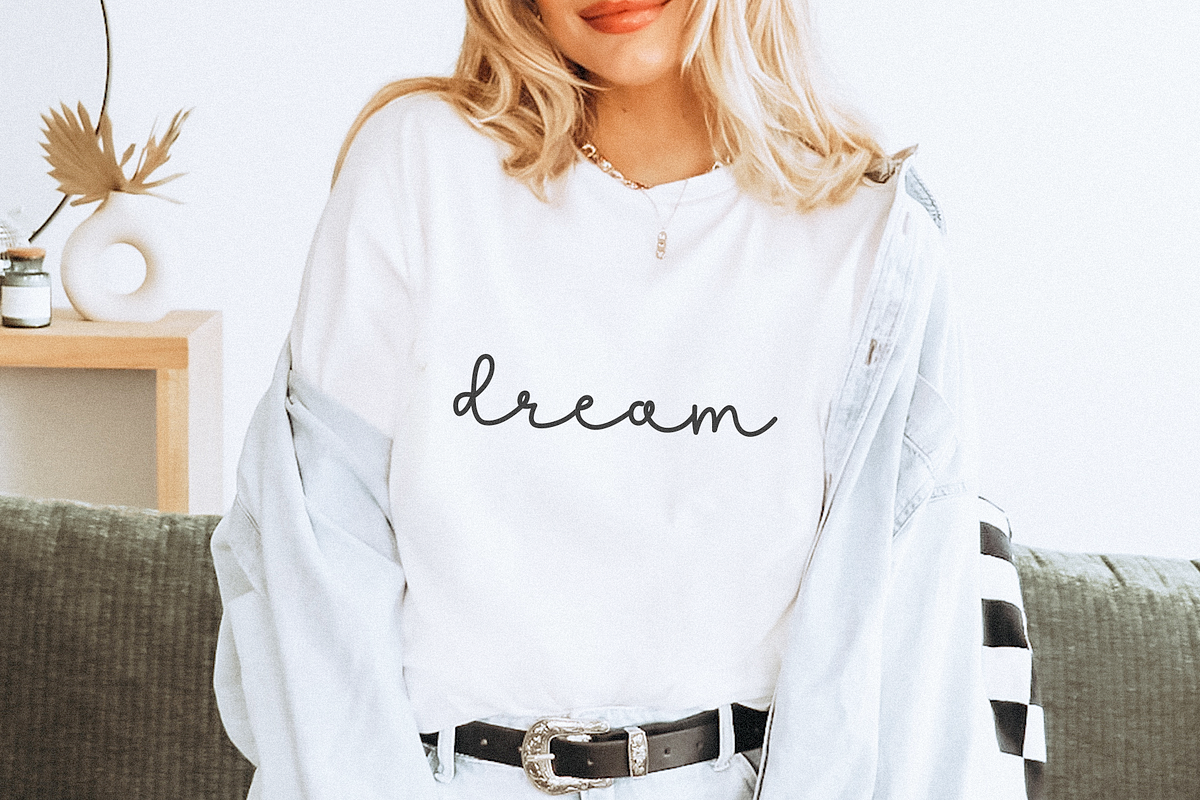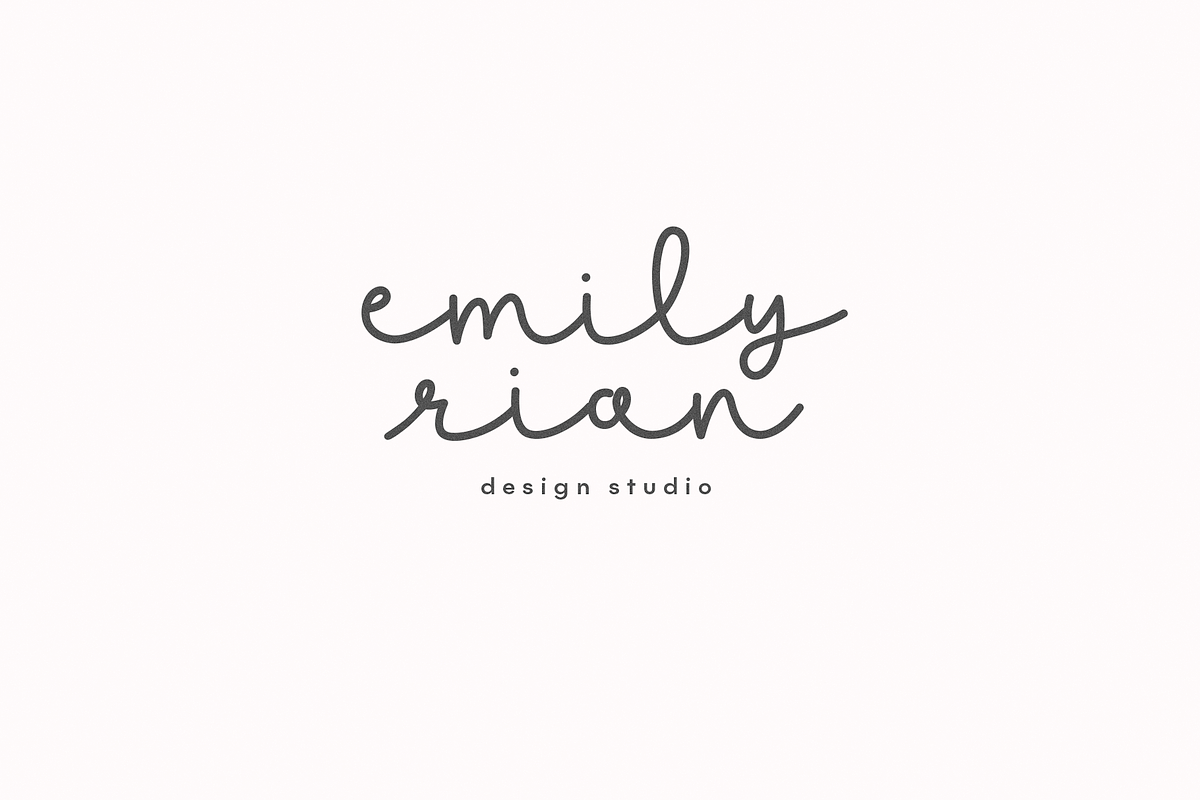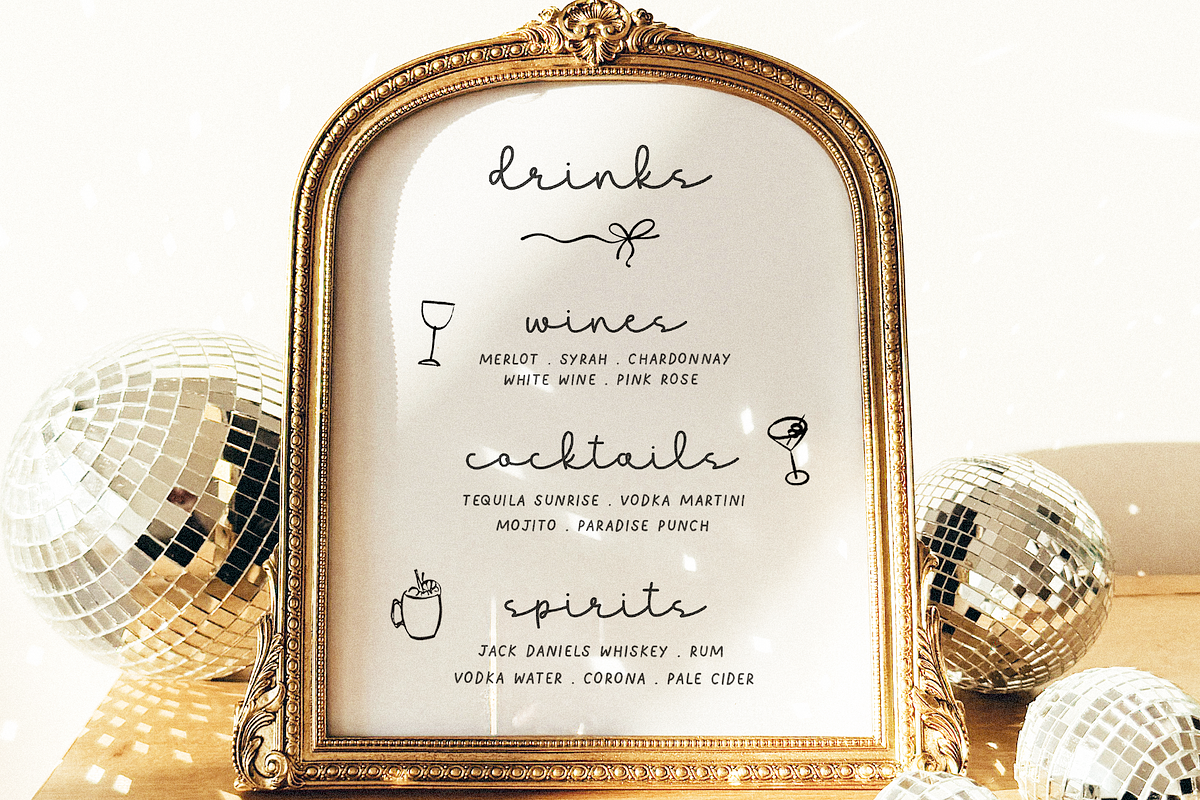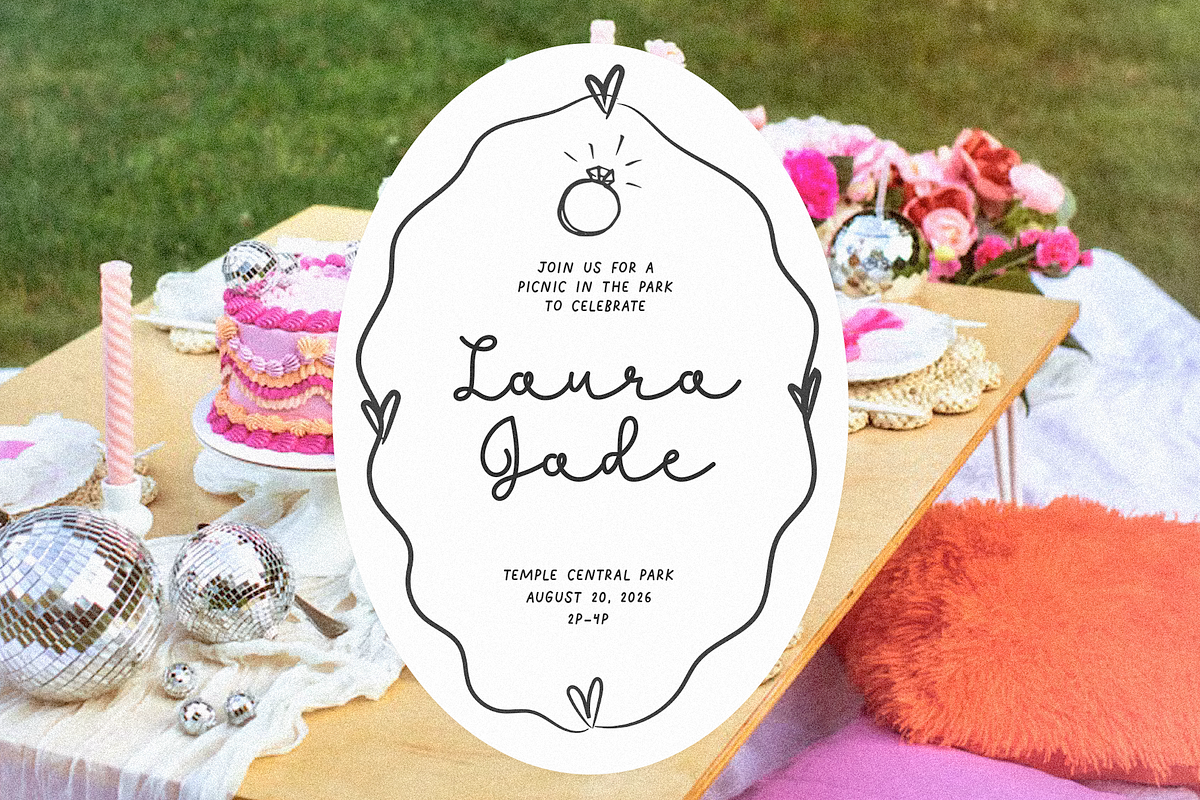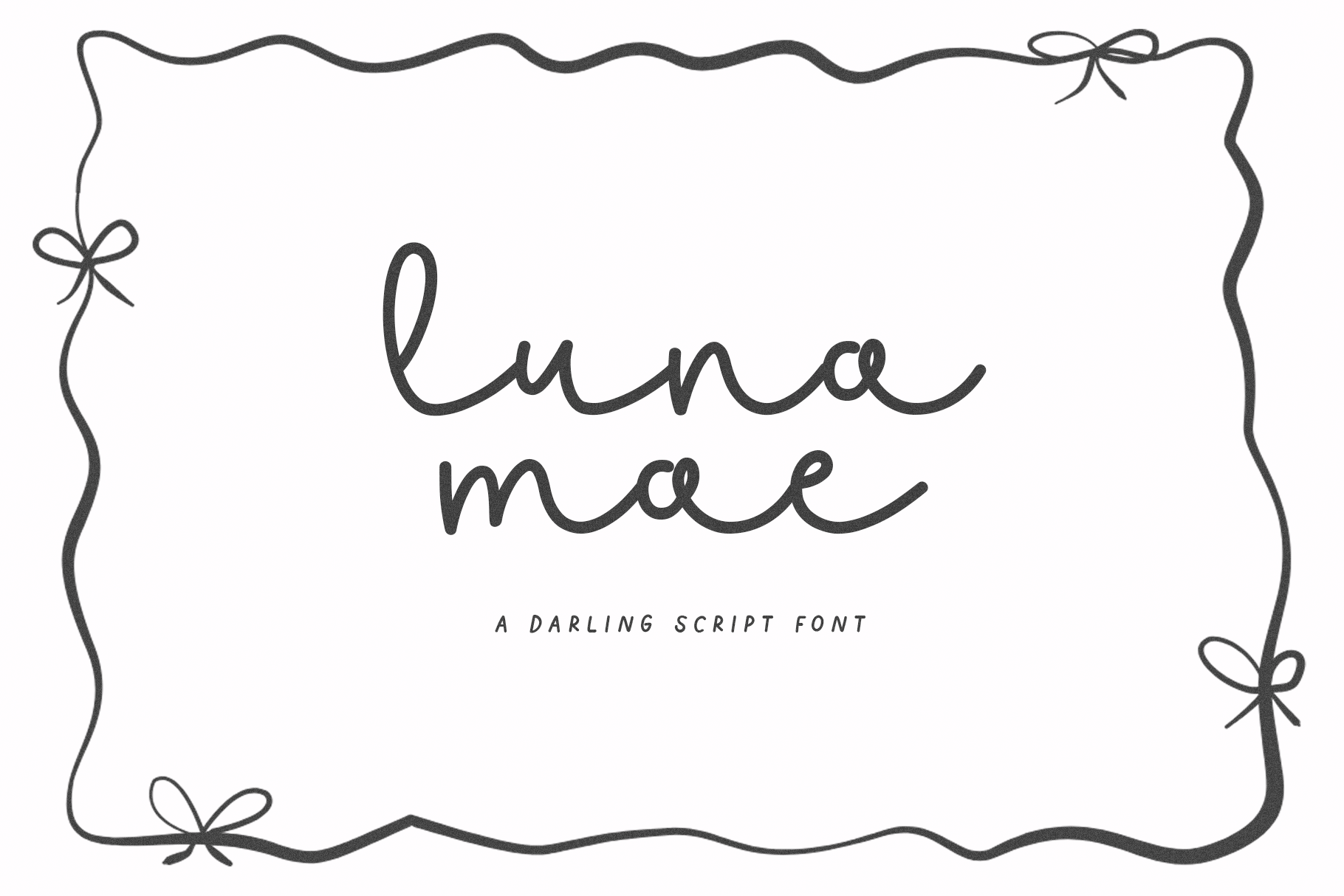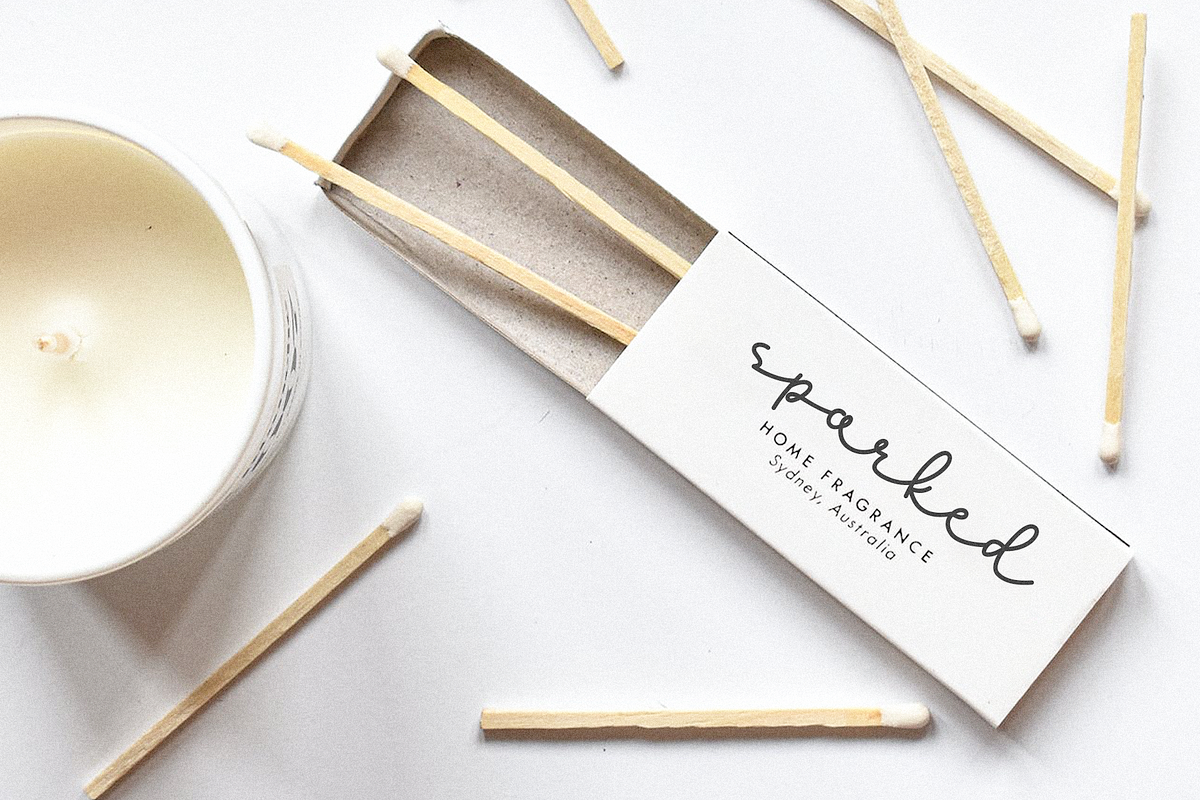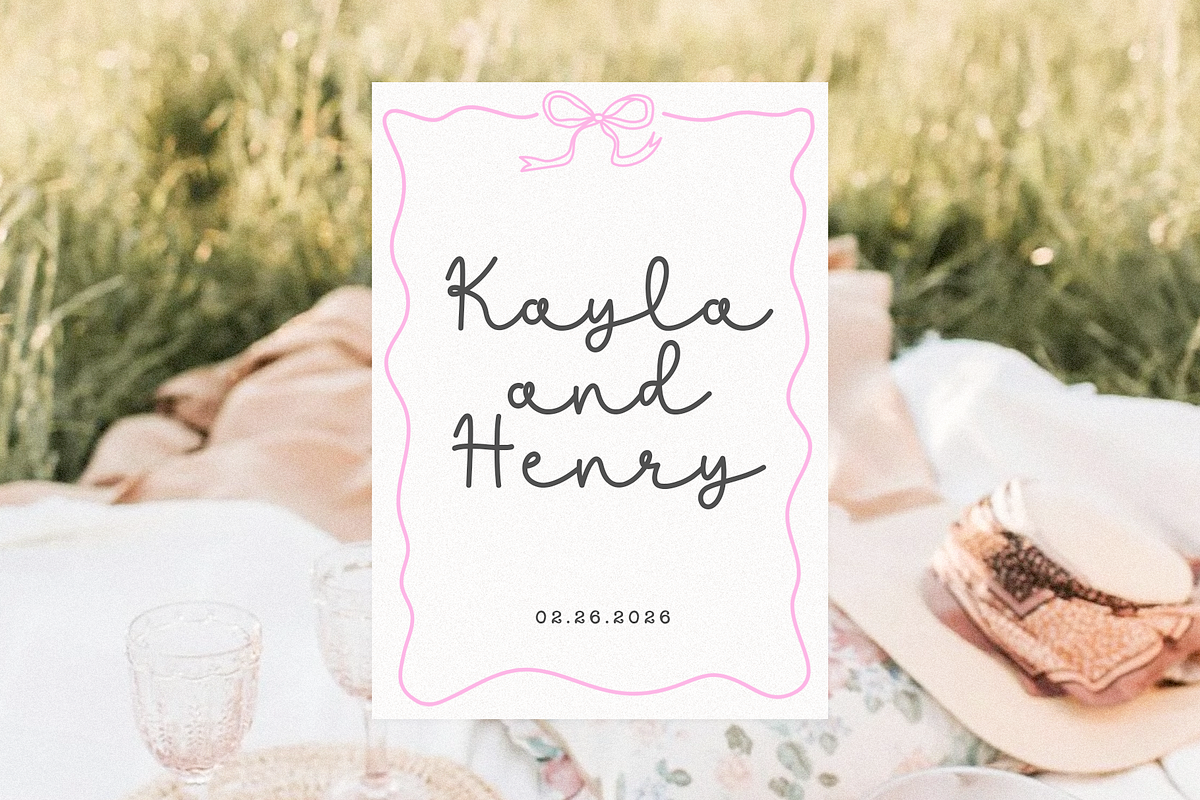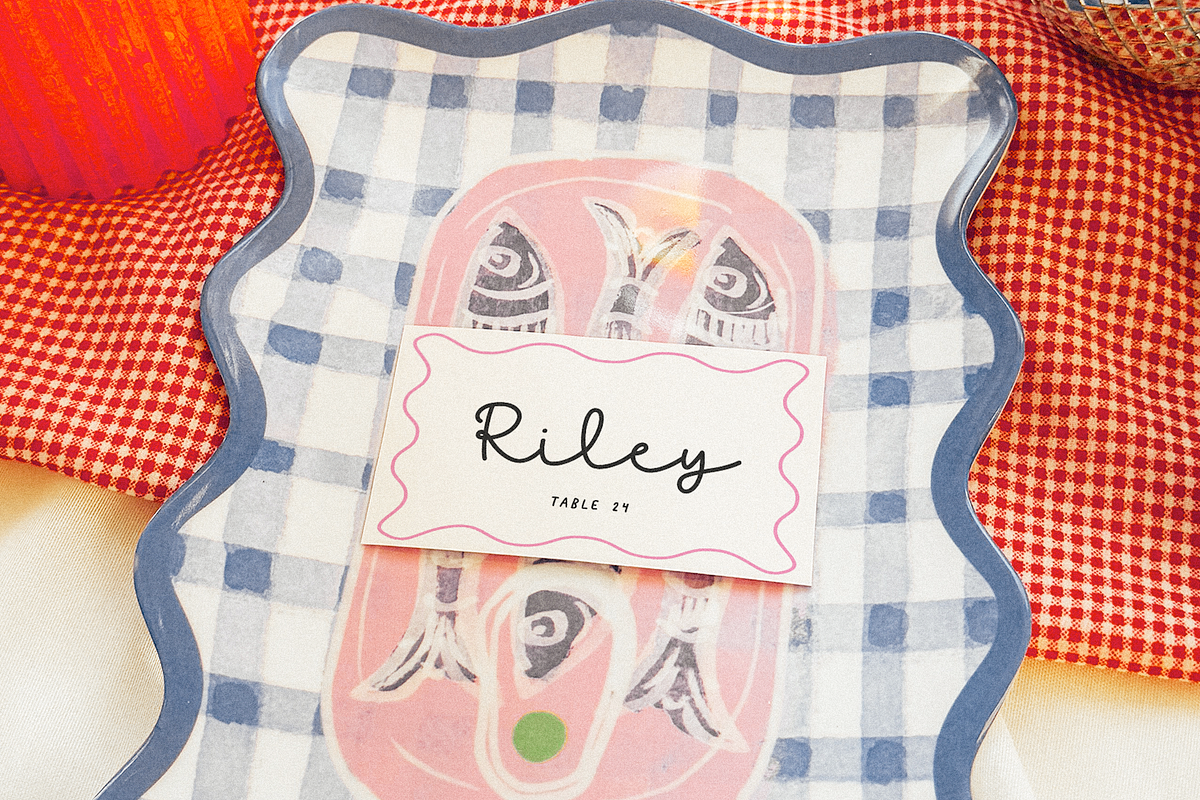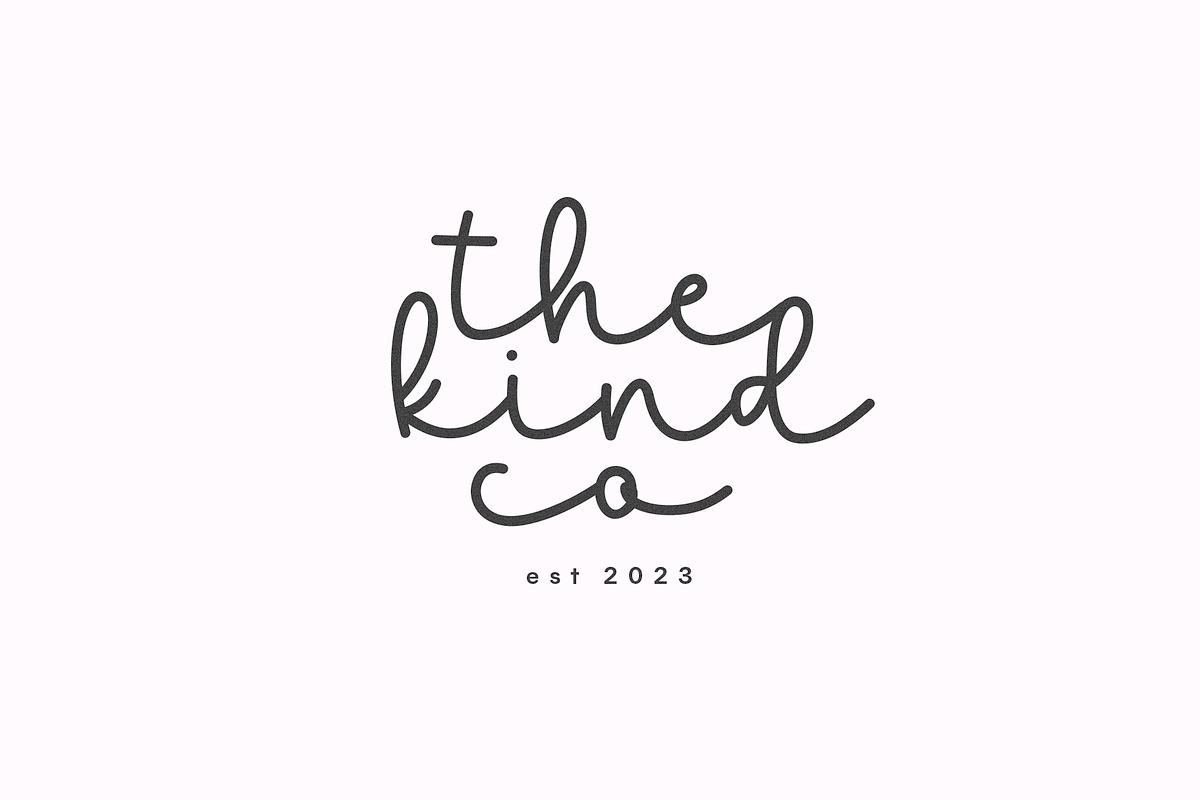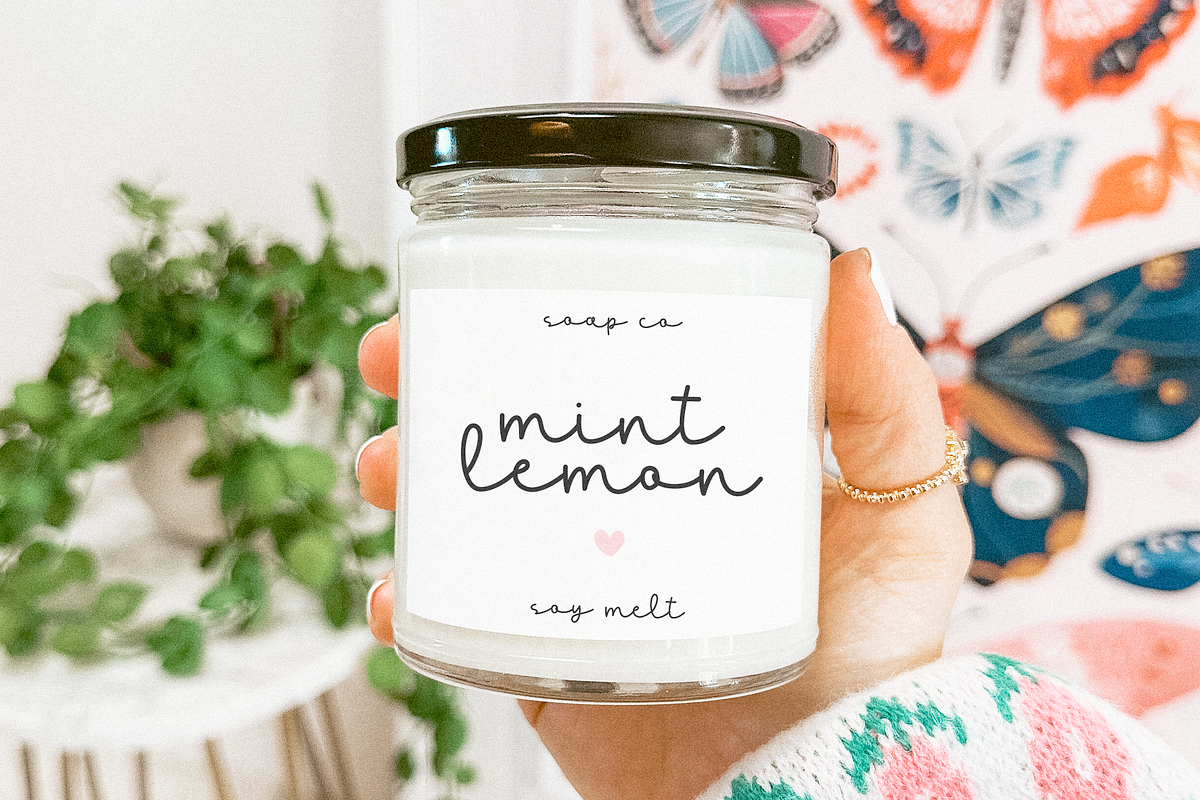
Luna Mae | Cute Script Font
Luna Mae is a cute handwritten script font.
This font is perfect for whimsy designs, cricut projects, Canva, svg files, wedding invitations, wedding decor, quotes, shirts, logos, goodnotes, procreate, invitations and more!